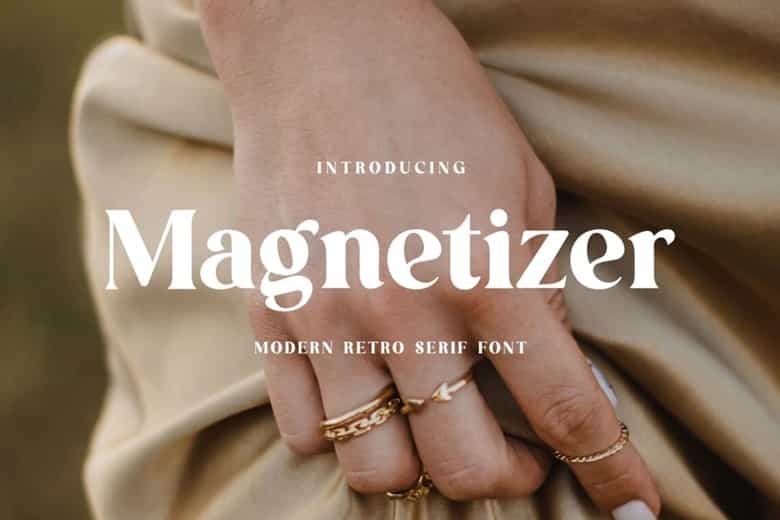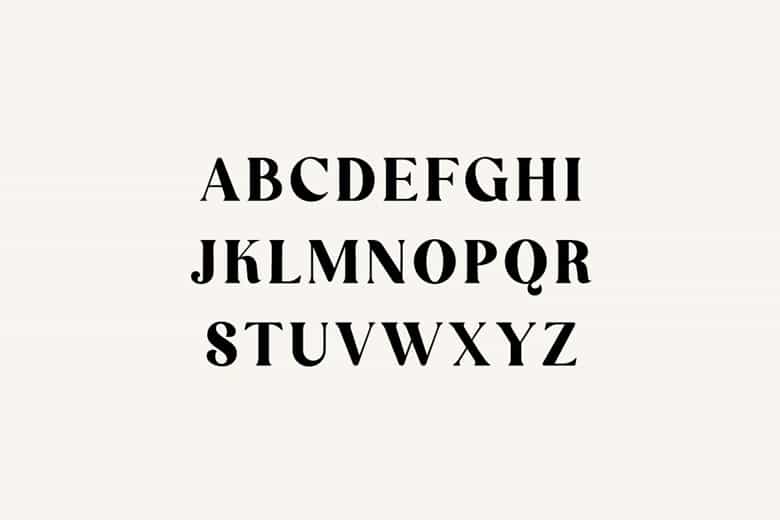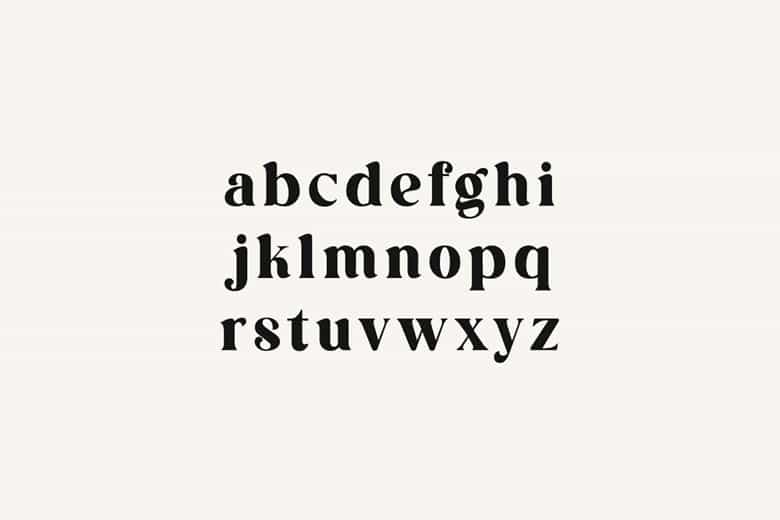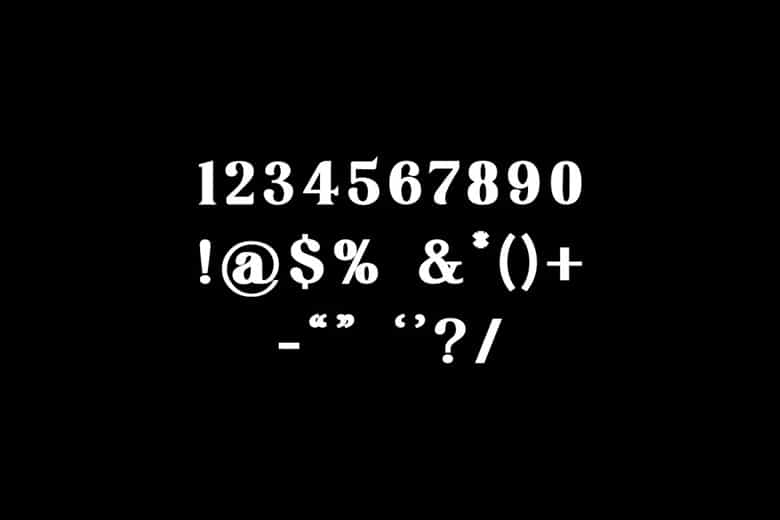
Magnetizer is a modern retro serif font. This font is ideal for all your different tasks, branding, logos, social media, ads, labels, packaging, weddings, invite designs, stationery and any project that you want to be professionally done.